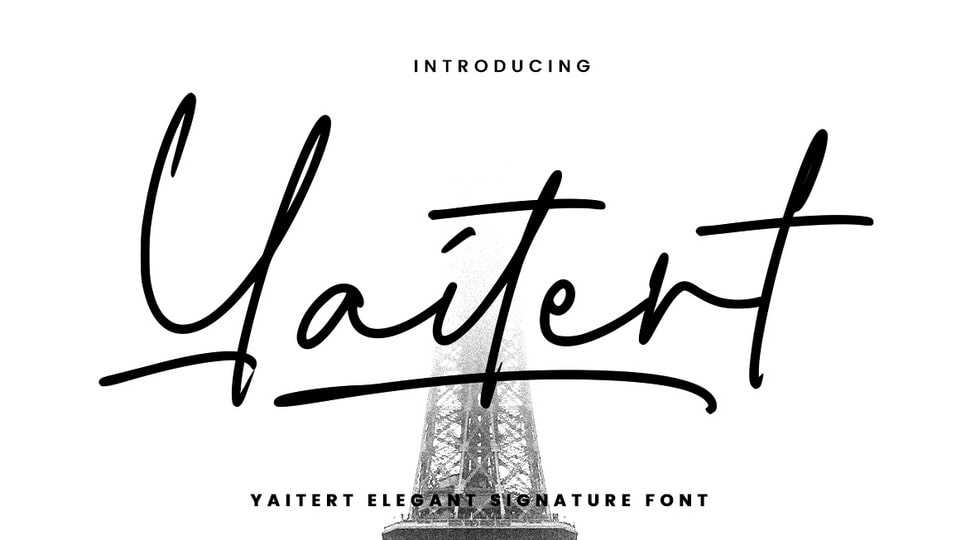
Download Yaitert font, a brush-style typeface that exudes an energetic and artistic handwritten vibe. The letters feature dynamic and fluid strokes, creating a casual and creative aesthetic.